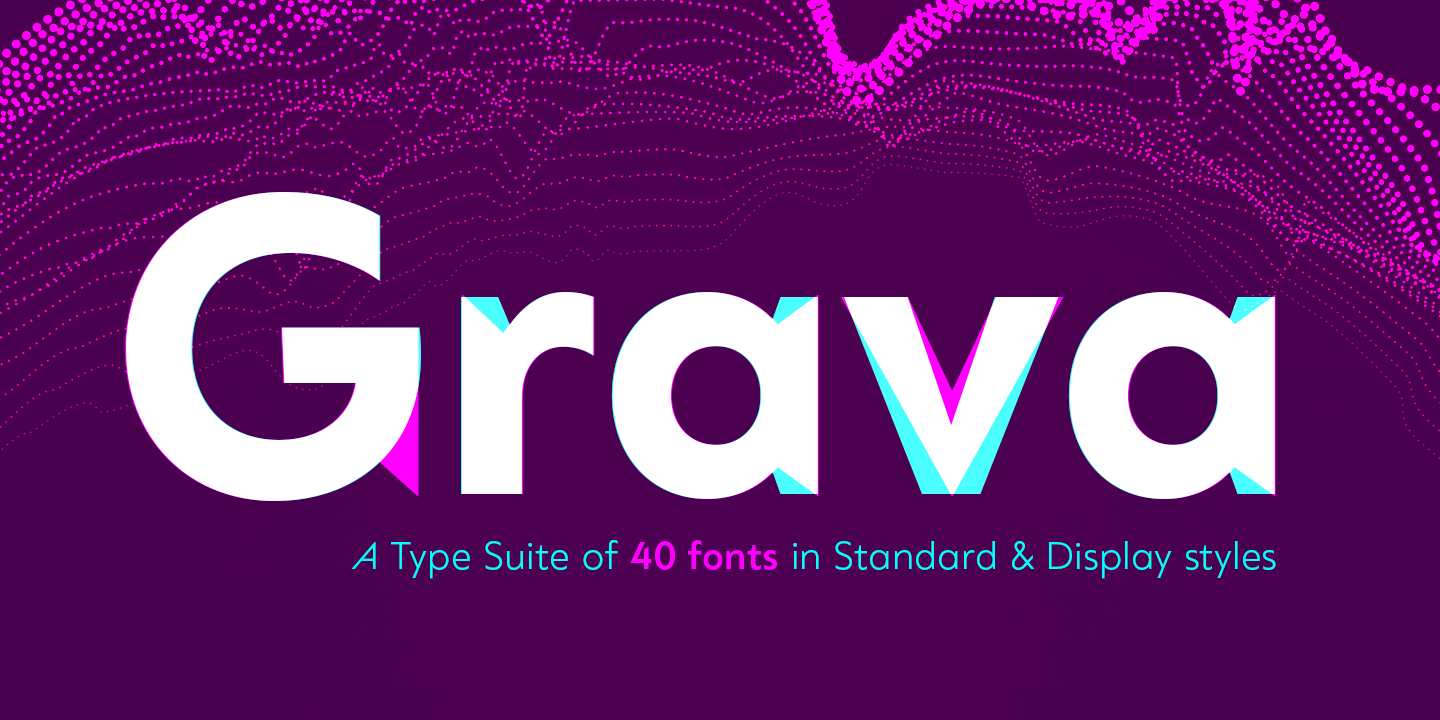
Grava Font is perfect for industrial branding, construction company logos, heavy machinery marketing, mining industry presentations, engineering firm identity, automotive advertising, manufacturing documentation, steel industry communications, heavy equipment catalogs, and rugged outdoor gear branding. This robust typeface creates powerful visual impact in both print and digital industrial applications.
What makes Grava Font exciting is its bold, industrial character that captures the essence of heavy industry and mechanical precision. The font features strong, angular letterforms with sturdy construction details that evoke the strength and reliability of industrial machinery. Its powerful design establishes an atmosphere of durability and professional craftsmanship that resonates with industrial audiences.
Grava Font family includes heavyweight styles: Regular, Bold, Black, Condensed, Extended, and Stencil versions. Each variant maintains the font's industrial strength while providing designers with versatile options for creating impactful typography systems and professional industrial communication materials.
This commanding industrial typeface brings unmatched strength to projects requiring powerful presentation. Whether you're designing heavy industry branding, manufacturing materials, or industrial marketing campaigns, Grava Font Free Download delivers exceptional impact and professional authority. The font's robust proportions and mechanical details ensure memorable brand recognition across various industrial applications.
Industrial companies and heavy equipment manufacturers appreciate how Grava Font perfectly communicates strength, reliability, and mechanical excellence. Its industrial foundation combined with contemporary functionality makes it indispensable for manufacturing and construction branding projects. Download today and power your industrial designs with this exceptionally strong mechanical typography.